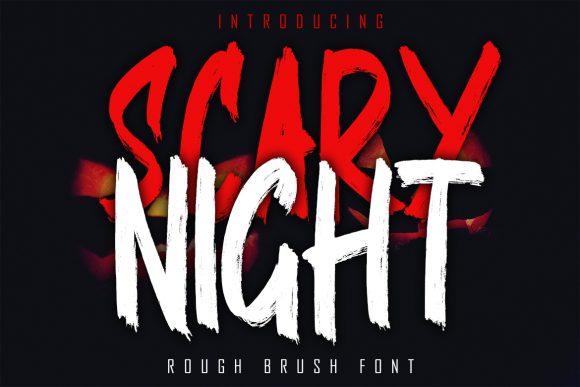
Behold the captivating essence of Scary Night Font, a masterpiece from the artistic realm of Skiiller Studio. This awe-inspiring display font will infuse your creative visions with a raw, edgy, and electrifying charm. Immerse yourself in a world where bold strokes and exhilarating textures unite to forge a symphony of visual delight.
Unleash the boundless possibilities of Scary Night Font, a versatile tool that transcends the boundaries of creativity. Whether you're crafting professional emails that demand attention, designing logos that exude strength, or seeking a unique touch for your branding, this font is your steadfast companion. Its rugged nature lends a touch of authenticity and personality to any project, while its inherent power commands attention and leaves a lasting impression.
Picture yourself crafting emails that captivate your audience, leaving them spellbound by your message. The boldness of Scary Night Font adds an undeniable charisma, ensuring your words leave an indelible mark. Visualize your designs come alive with dynamic logos that ooze confidence, reflecting the essence of your brand in a way that resonates with your customers.
As you embark on your creative journey with Scary Night Font, discover a world of limitless expression. Let its edgy character enhance your social media presence, adding a touch of intrigue and uniqueness to your posts. Watch as your social media profiles transform into captivating hubs of visual inspiration.
With Scary Night Font by your side, you'll discover a newfound confidence in your creative abilities. Embrace the power of this remarkable font and watch as your designs soar to new heights. Step into the spotlight and let Scary Night Font amplify your message, capturing hearts and minds with its irresistible charm.